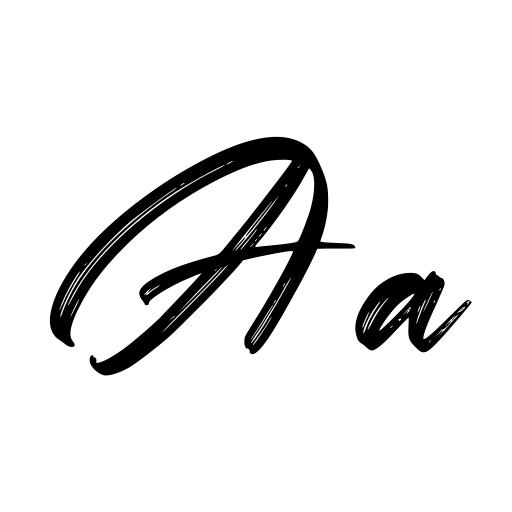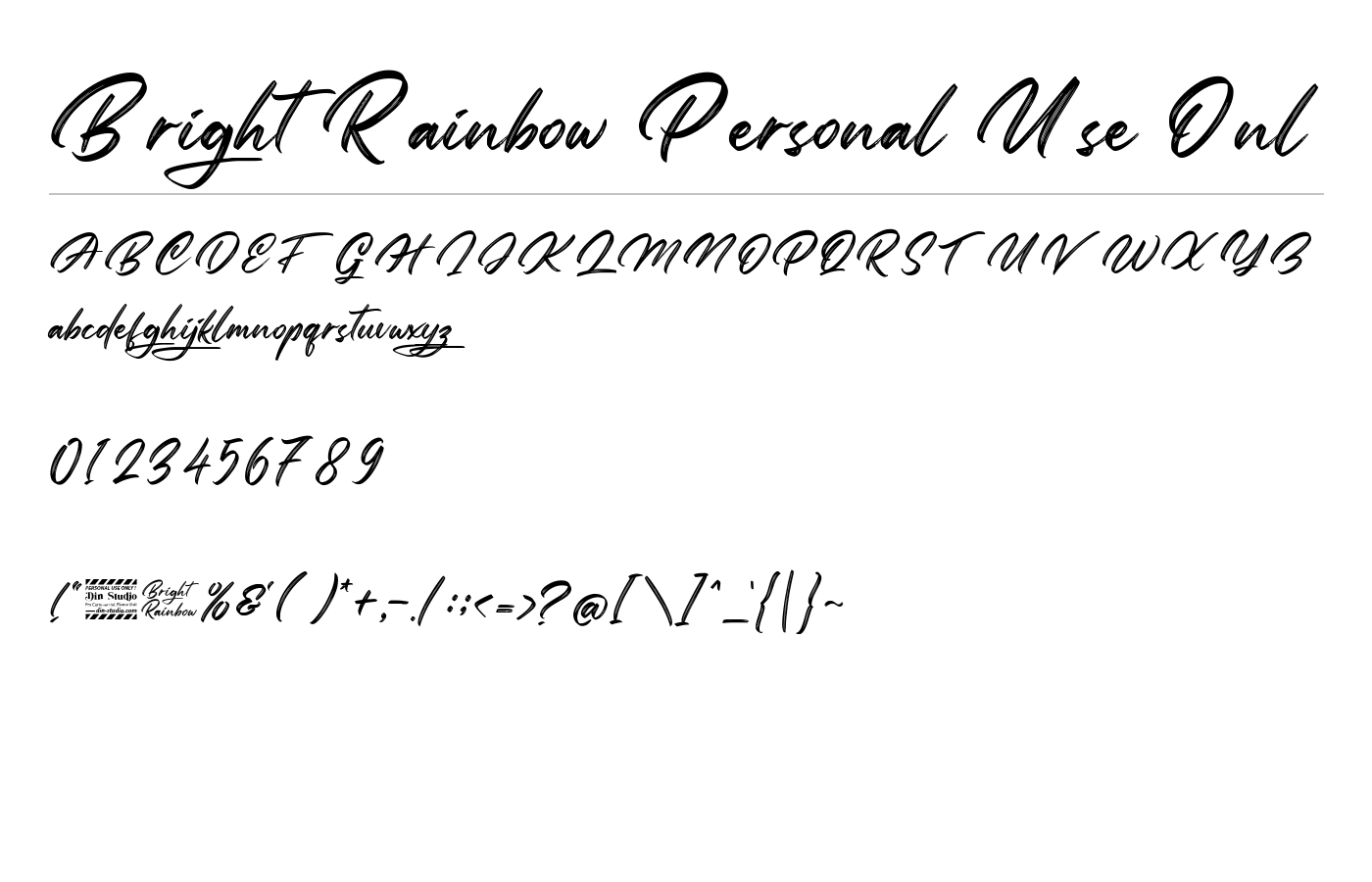
Bright Rainbow Personal Use Onl is an elegant script font with a natural, handwritten feel, featuring smooth, flowing strokes and delicate flourishes that add personality and charm. Its medium weight and well-balanced letterforms make it perfect for stylish logos, invitations, and creative projects where a sophisticated yet approachable touch is desired. This font works beautifully for designs that want to convey warmth, creativity, and elegance.
Bright Rainbow Personal Use Onl Font
About Bright Rainbow Personal Use Onl Font